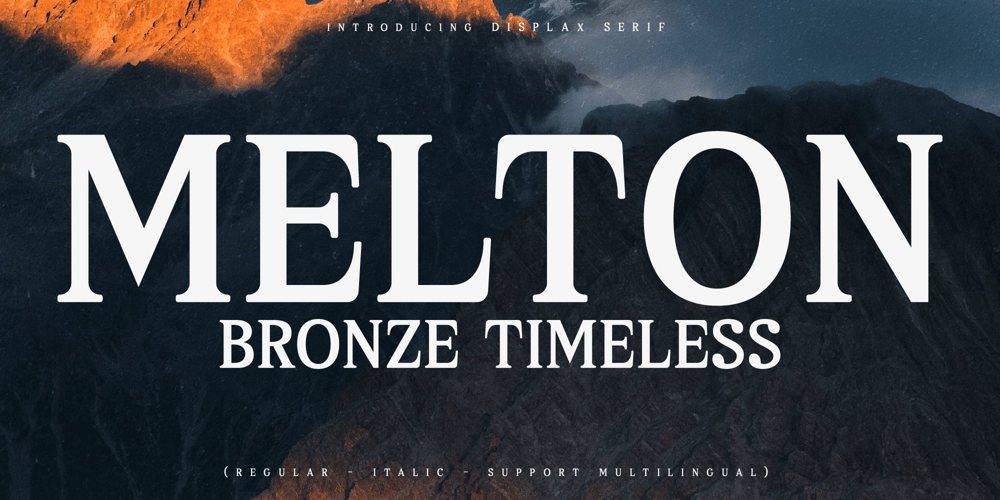
Melton Bronze Timeless Font Family was designed by Heru Utama Putra and published by Letterena Studios. Melton Bronze Timeless contains 2 styles and family package options. Melton Bronze Timeless is a modern and classic serif typeface that is perfect for an elegant & luxurious logo, book or movie title design, fashion brands, magazines, clothes, lettering, quotes, and so much more.